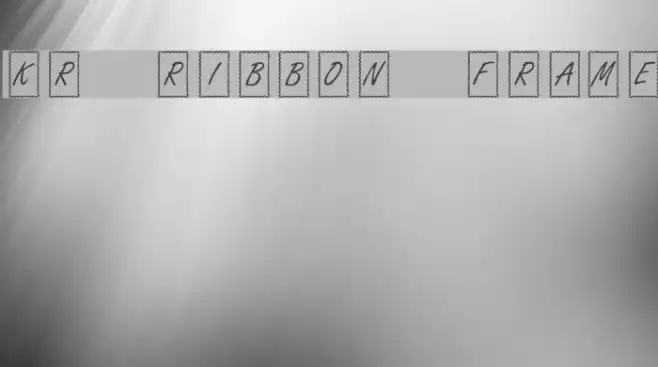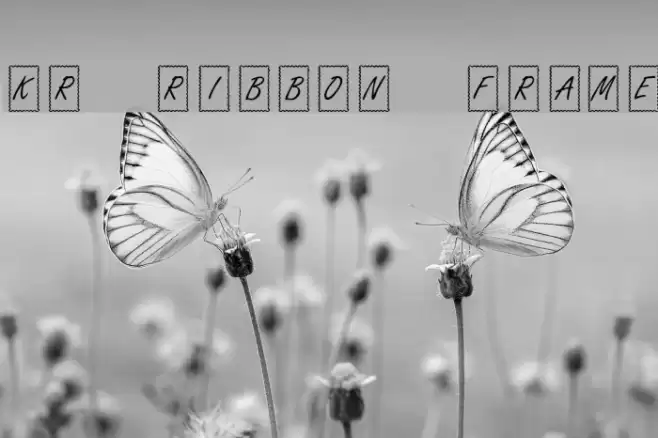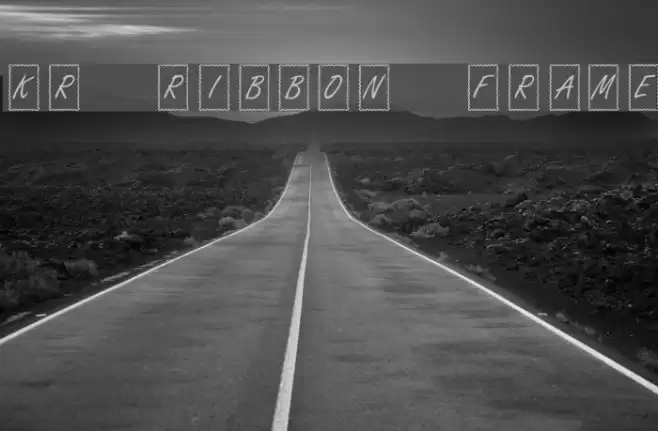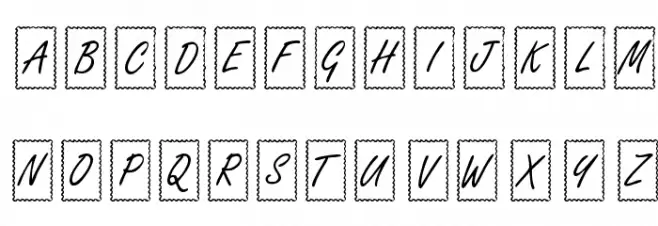
KR Ribbon Frame Font
KR Ribbon Frame Description
This font features a unique and decorative style, with each character enclosed in a scalloped rectangular frame, resembling a ribbon or stamp. The letters are presented in a script-like form, giving them a handwritten appearance. The uppercase and lowercase letters maintain a consistent style, with smooth, flowing lines and a slight slant, enhancing the elegant and artistic feel. The numbers and special characters are also included, following the same design principles. This font's distinctiveness lies in its combination of decorative framing and cursive script, making it stand out in any design project.
A decorative script font with scalloped frames around each character from Uncategorized fonts.
- Proposed Projects: Ideal for invitations, greeting cards, scrapbooking, and decorative labels.
- Use Case: Logos, Headlines, Decorative text